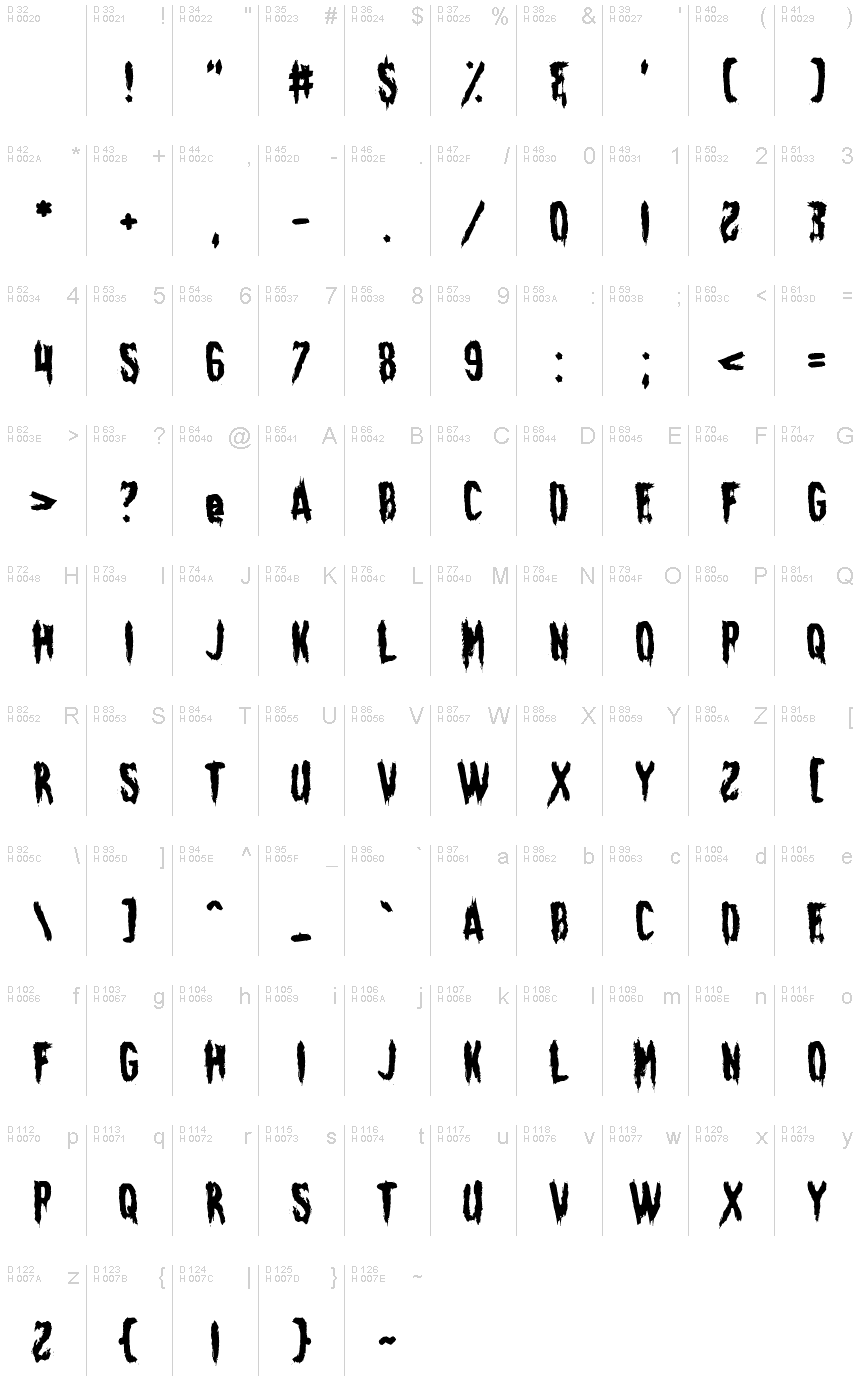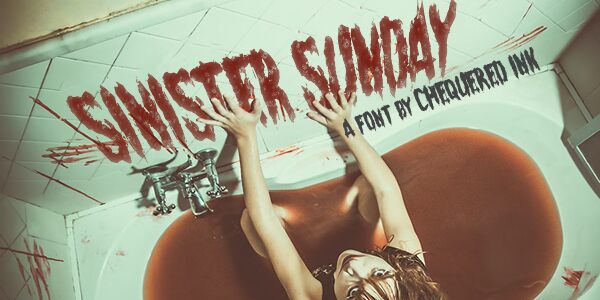
Sinister Sunday
Sinister Sunday, the bold and extra-condensed horror display font created by Chequered Ink, will send shivers down your spine. This spooky font is perfect for haunted house flyers, Halloween party invitations, and horror movie posters. Its unique style will add an eerie touch to any project that needs a scary vibe. Use Sinister Sunday for book covers of supernatural thrillers or horror games with terrifying monsters. The possibilities are endless when it comes to this versatile and creepy font. Get ready to scare your audience with Sinister Sunday!